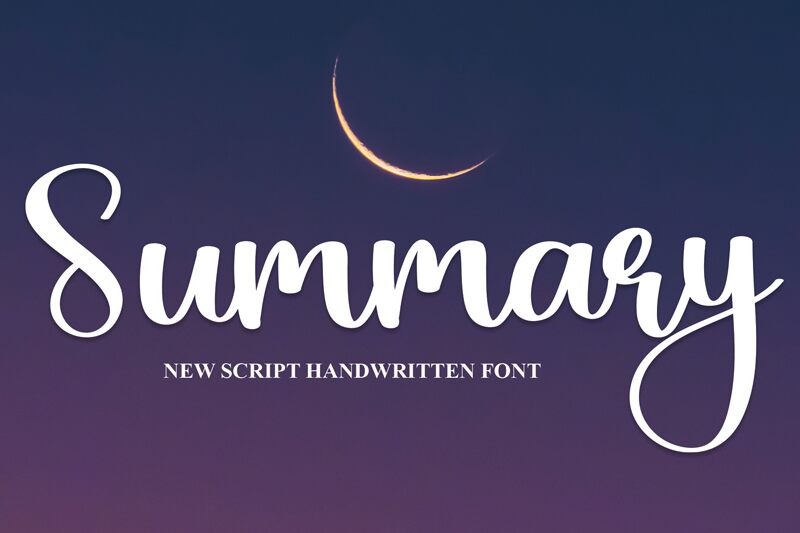
Summary
Summary, a handwritten font crafted by Scratchones, exudes a charm that is both personal and polished. With its fluid strokes and varying line weights, this typeface captures the essence of bespoke penmanship while maintaining legible form. The elegant loops and subtle quirks of Summary offer a sense of intimacy, making it an ideal choice for designs that require a touch of humanity without sacrificing professionalism.
Its aesthetic appeal lies in the balance between casual flair and meticulous design. Each character is constructed with care, ensuring that the text flows naturally as if written with an artisan's hand. This makes Summary particularly suitable for branding projects, invitations, or any creative work where personality is key.
The versatility of Summary shines in both digital and print mediums; its clarity remains intact even at smaller sizes while its distinctive style stands out in headlines or as accent text. Embrace the authentic feel that Summary brings to your creative endeavors – from expressive web design to tactile stationery – this font is ready to tell your story with elegance and character.